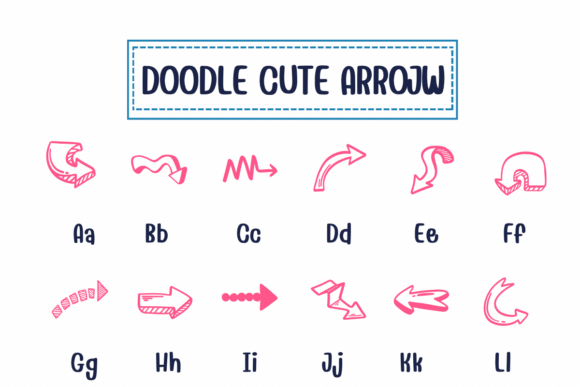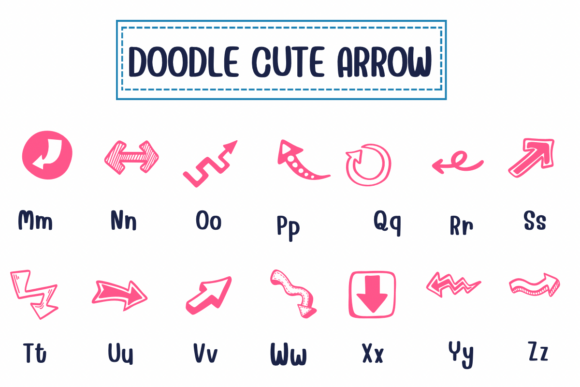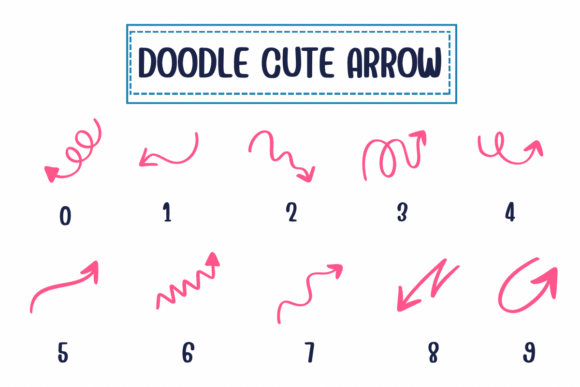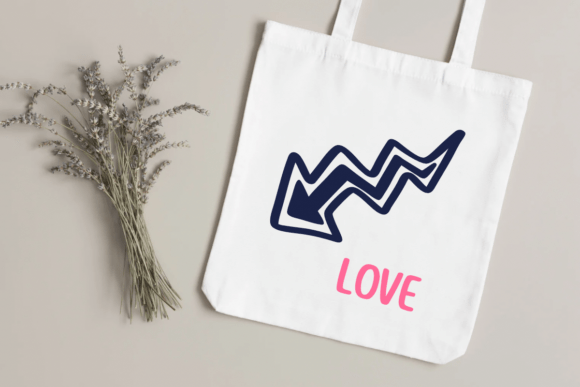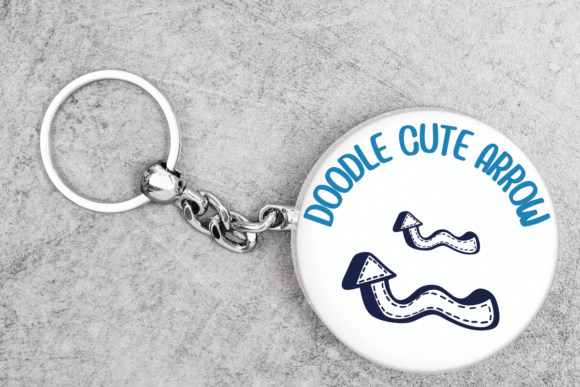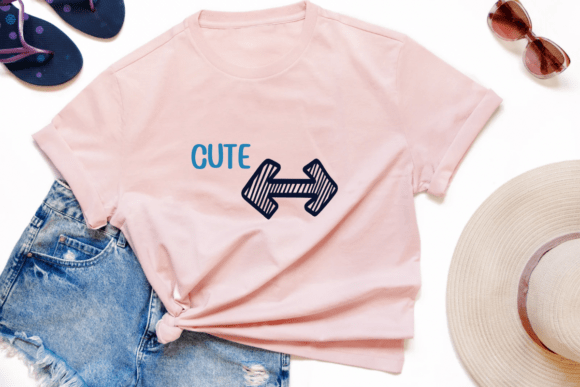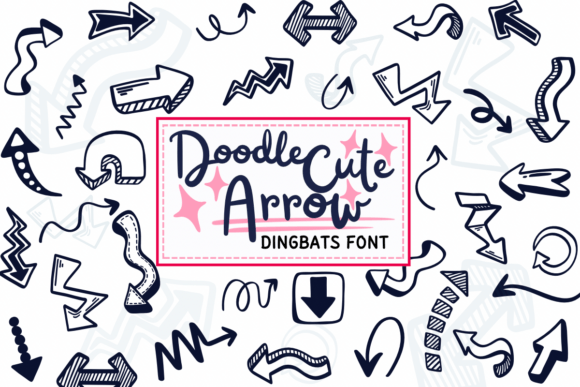
Doodle Cute Arrow Font: Add a Touch of Whimsy to Your Creative Projects
Are you looking for a fun and playful font to add a touch of personality to your creative projects? Look no further than the Doodle Cute Arrow Font! This delightful dingbats font is perfect for designers, crafters, and DIY enthusiasts who want to add a dash of whimsy to their work.
What is Doodle Cute Arrow Font?
Doodle Cute Arrow Font is a unique and charming font that features adorable arrow designs, perfect for adding a playful touch to your projects. This font is a dingbats font, which means it’s made up of symbols and icons rather than traditional letters and numbers. The Doodle Cute Arrow Font is designed to be fun, versatile, and easy to use, making it perfect for a wide range of creative projects.
How Can I Use Doodle Cute Arrow Font?
The possibilities are endless when it comes to using Doodle Cute Arrow Font! Here are just a few ideas to get you started:
- Wedding Invitations: Add a touch of whimsy to your wedding invitations with the Doodle Cute Arrow Font. Use it to create custom arrow designs, borders, and other decorative elements that will make your invitations stand out.
- DIY Crafts: The Doodle Cute Arrow Font is perfect for DIY craft projects, such as scrapbooking, card making, and other paper crafts. Use it to add custom arrows and other designs to your projects.
- Decorations: Use the Doodle Cute Arrow Font to create custom decorations for your home or office. Design custom banners, garlands, and other decorative elements that will add a touch of personality to your space.
- Logos: The Doodle Cute Arrow Font can also be used to create custom logos for your business or brand. Use it to design a unique and memorable logo that will help you stand out.
Features of Doodle Cute Arrow Font
The Doodle Cute Arrow Font has a number of features that make it a great choice for designers and crafters. Here are just a few:
- Fun and Playful Design: The Doodle Cute Arrow Font features adorable arrow designs that are sure to add a touch of whimsy to your projects.
- Versatile: The Doodle Cute Arrow Font can be used for a wide range of creative projects, from wedding invitations to DIY crafts.
- Scalable: This font is scalable, which means you can use it for projects of all sizes, from small crafts to large banners.
Tips for Using Doodle Cute Arrow Font
Here are a few tips for getting the most out of the Doodle Cute Arrow Font:
- Experiment with Different Sizes: Don’t be afraid to experiment with different sizes and scales when using the Doodle Cute Arrow Font. This font looks great in both large and small sizes.
- Combine with Other Fonts: The Doodle Cute Arrow Font can be combined with other fonts to create a unique and interesting look. Try pairing it with a bold font for a striking contrast.
- Use for Details: The Doodle Cute Arrow Font is perfect for adding custom details to your projects. Use it to create custom borders, icons, and other design elements.
The Doodle Cute Arrow Font is a fun and versatile dingbats font that’s perfect for designers, crafters, and DIY enthusiasts. With its adorable arrow designs and easy-to-use format, this font is sure to add a touch of whimsy to your creative projects. Whether you’re creating wedding invitations, DIY crafts, or custom decorations, the Doodle Cute Arrow Font is a great choice. So why wait? Download the Doodle Cute Arrow Font today and start adding a touch of personality to your projects!